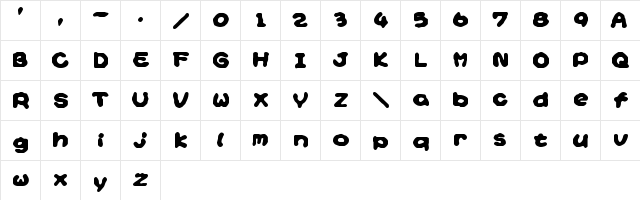
Yoshi's Story game text BRK Regular
| Foundry | ƎIGMA FONTS |
| Designer | ƎIGMA FONTS - Brian Kent |
Design Context for Yoshi's Story game text BRK Typeface
Yoshi's Story game text BRK is a composed and adaptable typeface that performs quietly and consistently across a wide range of design contexts.